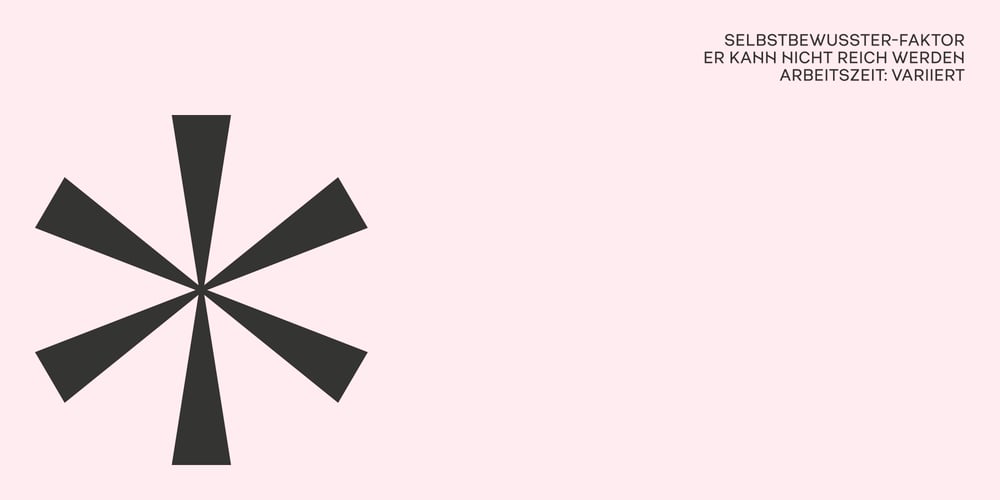
Sablon C Font Family was designed by Roman Cernohous and published by Roman Cernohous Typotime. Sablon C contains 5 styles and family package options. Sablon is back! This time on the edge in Thick & Thin version, keeping its significant features especially in letters B, G, M and N. With new expressive figures best suitable in headlines and packaging graphics.